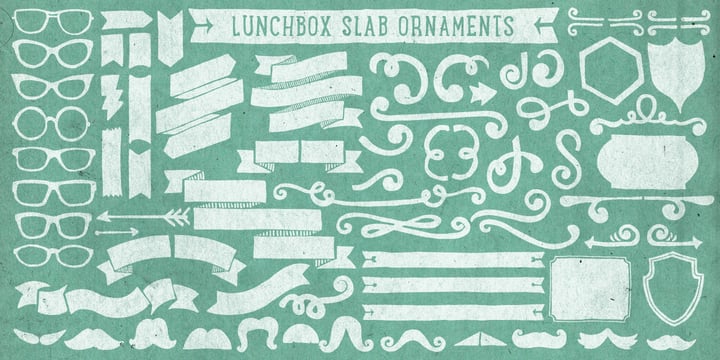
LunchBox Slab
by Kimmy Design
LunchBox Slab is the pair of LunchBox, a uniquely hand-drawn typeface that gives numerous customizable options and a fully authentic look. The serifs in LunchBox Slab are simple blocks, with bulbous terminals on curved letters, which creates a unique effect. Identical to its pair behind the scenes, LunchBox Slab’s OpenType features allow access to over 1,500 different characters. Contextual alternatives give each letter 4 different character styles, all cycling through each other to ensure that no two letters ever show up together. There is also a custom set of small caps, each with 4 style variations as well. Stylistic alternatives give an extra hand-drawn flourish, loop and slight variation, also with 4 different styles per letter. Discretionary ligatures pertain to both regular all caps LunchBox as well as stylistic alternatives. It gives special letter combinations a unique interaction, giving your design a unique and personalized look without spending hours creating it and outlining your text. Included are also a set of swashes that also have four style variations to both the regular and stylistic alternatives, as well as lowercase letters with ascenders and descenders. All of these options are available in Light, Regular and Bold. LunchBox Slab Ornaments includes nearly 200 different graphics, flourishes, frames, catchwords, text breaks and arrows. If you do not use OpenType but are using a program that includes a full glyph panel, you will be able to manually access each of the style variations you want. Enjoy!
Designers: Kimmy Kirkwood
Foundry: Kimmy Design
“Kimmy Design is based out of Santa Monica, CA, but it’s as mobile as I am,” Kimmy Kirkwood says. “I love finding new inspiration and I work from Seattle, Palm Springs, Santa Monica, or wherever the next adventure takes me!” Kimmy founded her company in 2010; the same year that she graduated from college. Her first typeface, Madeleine, which is based on a logotype that she had created for a hotel in Positano, Italy, was actually a part of one of her final collegiate projects. She used it as an opportunity to teach herself about the intricacies of type design and develop the programming skills needed to create a true working font. Since then, her most successful designs have included Lunchbox and Lunchbox Slab: quirky hand-drawn typefaces that give an incredible array of customizable options and an authentically hand-crafted look. “My goal with these,” she says, “was to make them unique enough that the end product from any designer would look as if it was all made by hand.” “I love organic typefaces. Creating something that looks naturally handcrafted and letting the customers make it their own. In every hand drawn family I make I include multiple weights, styles and variations.” Kimmy uses contextual alternates in her typefaces and typically creates 3-5 variations of each letter, giving her fonts a truly hand-lettered feel. “I also usually include stylistic alternatives, which range from creating simple variations on specific letters to a unique style alternative for every character. Small Caps are a great way to give more options to designers while keeping the width and size of the font consistent. All of my font families are multilingual, and many include full Cyrillic and Greek alphabets. Whenever possible, I always include some sort of swash - either in fancy capitals, at the beginning and end of characters, or stylistic swashes.” All of these customizable options give the young designer’s families an intimate, personal feel. “Two different people could use my font and create something totally unique from one another. That’s what makes them so fun to use!”